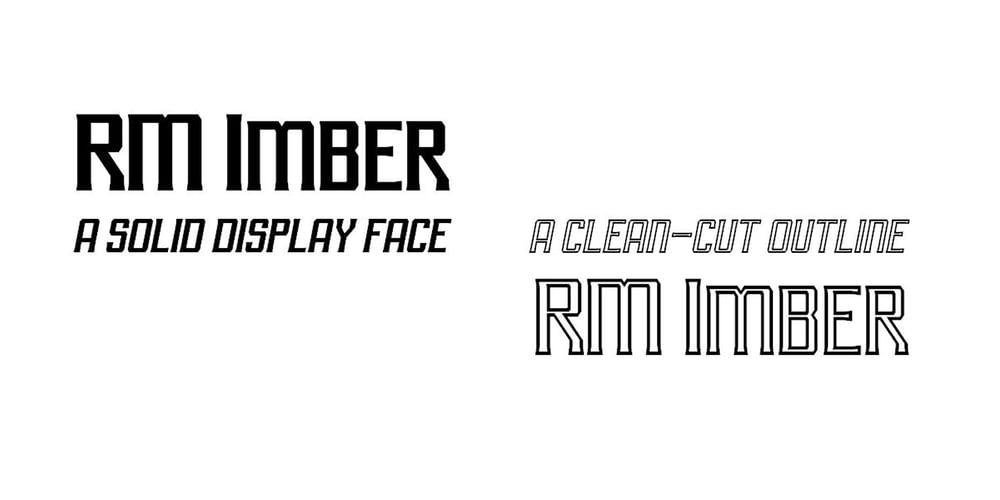
RM Imber Font Family was designed by Ray Meadows and published by Ray Meadows. RM Imber contains 4 styles and family package options. A great new display face. The slight serif gives extra character to this solid looking design, whilst the outline version has an open, clean look.